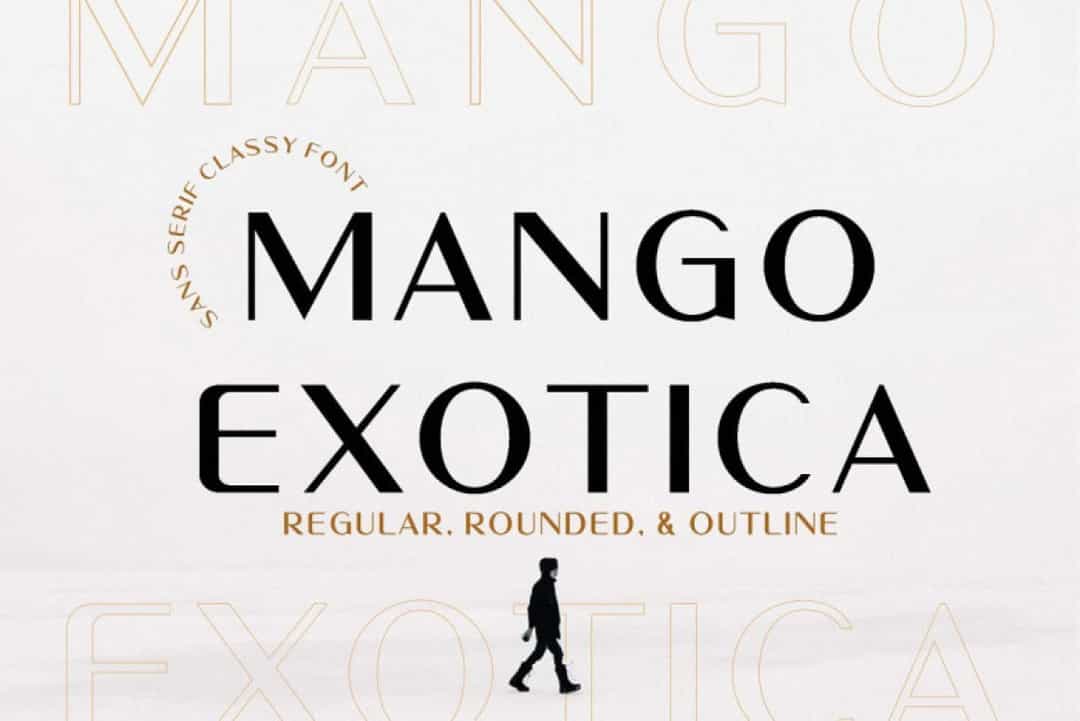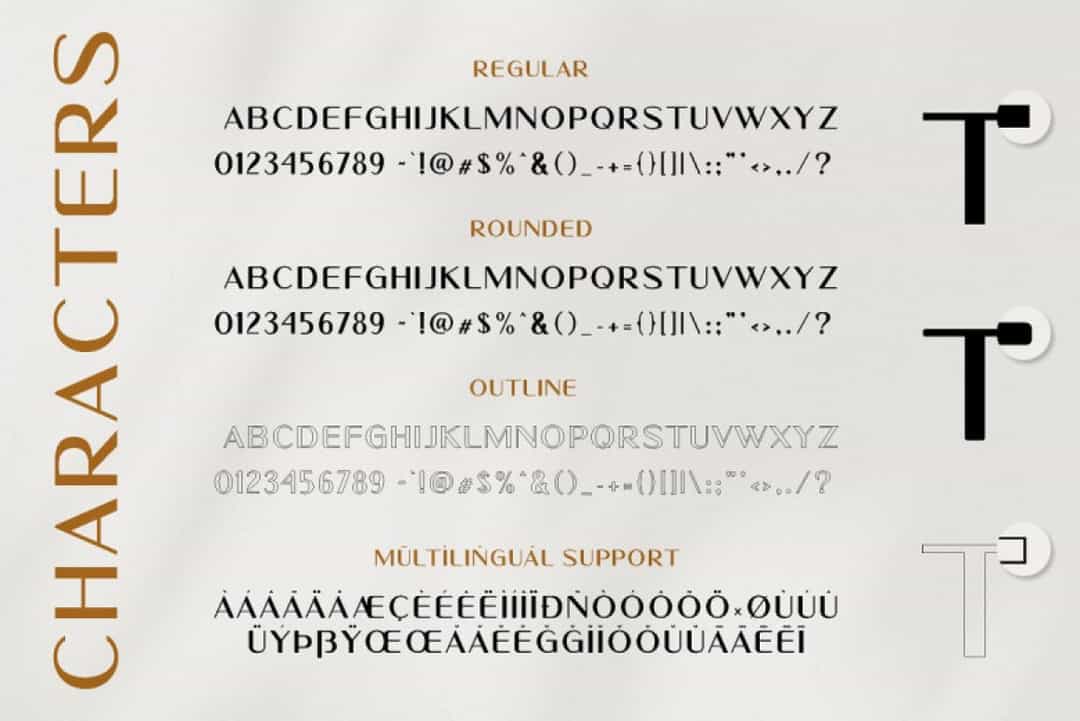
Mango Exotica is an elegant and minimalist sans serif typeface that’s easily integrated into multiple projects, giving your work that extra edge! Add this timeless font into your design efforts and watch how they pop!